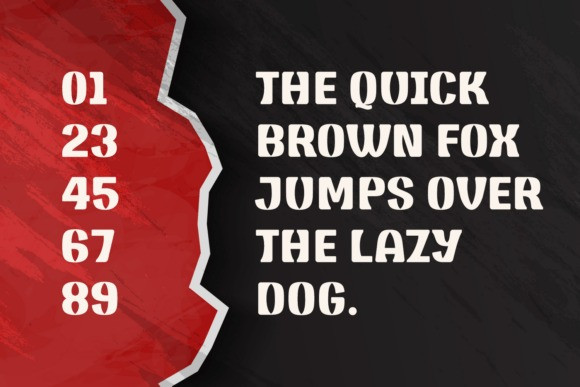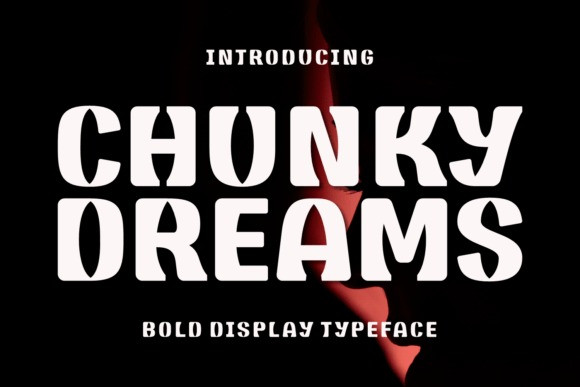
Chunky Dreams Font
Chunky Dreams Font is a cool, bold yet whimsical display font that brings a touch of warmth and authenticity to your project. Perfect for headlines, t-shirt, crafting, stickers, and many more. Add this font to your designs and notice how it makes them come alive!